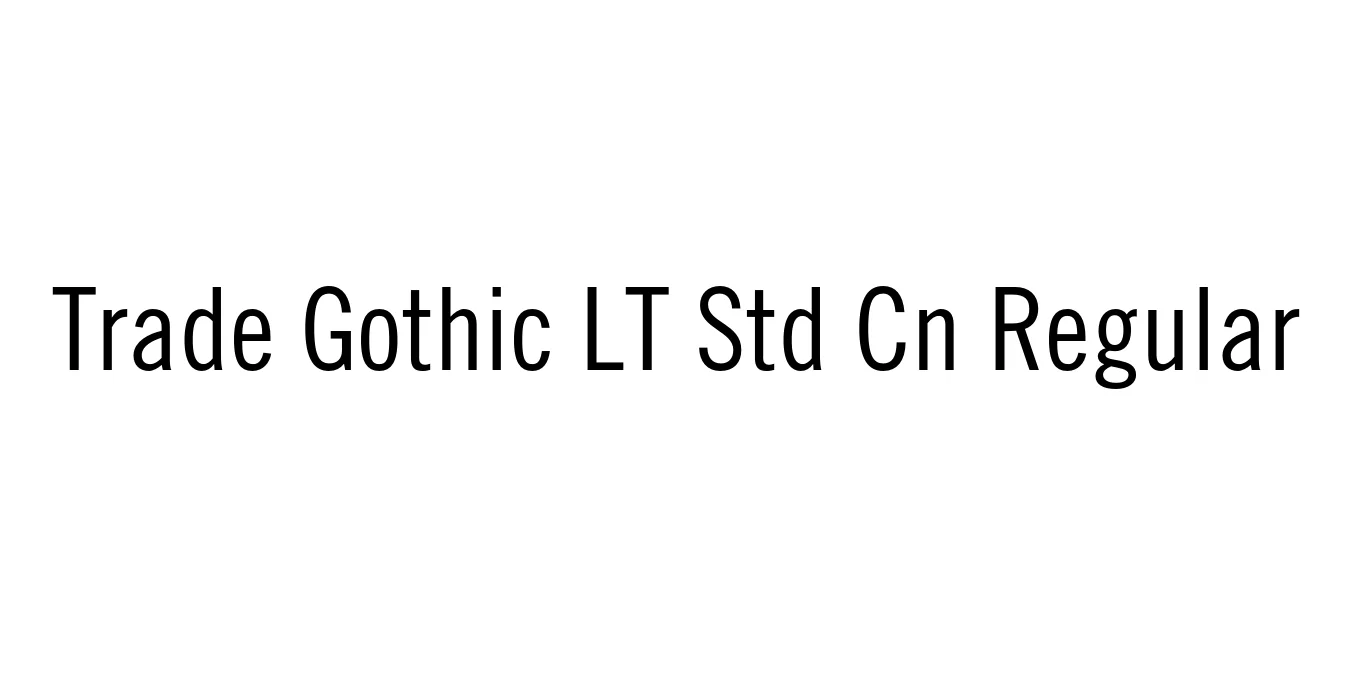
Trade Gothic LT Std Cn Regular
Designed by Jackson Burke
Trade Gothic LT Std Cn Regular was first designed by Jackson Burke in 1948, who continued to expand the family until 1960 while he was the director of type development for Mergenthaler Linotype. Unlike many other sans-serif families that strive for a perfectly uniform appearance, Trade Gothic features a gritty, down-to-earth aesthetic that is often described as 'industrial' or 'utilitarian.' This lack of total consistency gives the typeface a unique character and a human touch that more modern, geometric faces often lack.
The Condensed version of this typeface is particularly celebrated for its exceptional space-saving qualities and high legibility in tight layouts. It became a staple in newspaper and magazine advertising due to its ability to pack headlines into narrow columns without losing impact. Even today, it remains a favorite among professional designers for branding, complex information design, and editorial work, providing a sense of reliability and authoritative strength to any composition.
Trade Gothic LT Std Cn Regular Best Uses
Perfect for high-impact titles that need to fit in narrow spaces.
Excellent for magazine sidebars and dense newspaper layouts.
Conveys a robust, no-nonsense industrial identity.
Commonly used for promotional materials requiring clear, authoritative messaging.